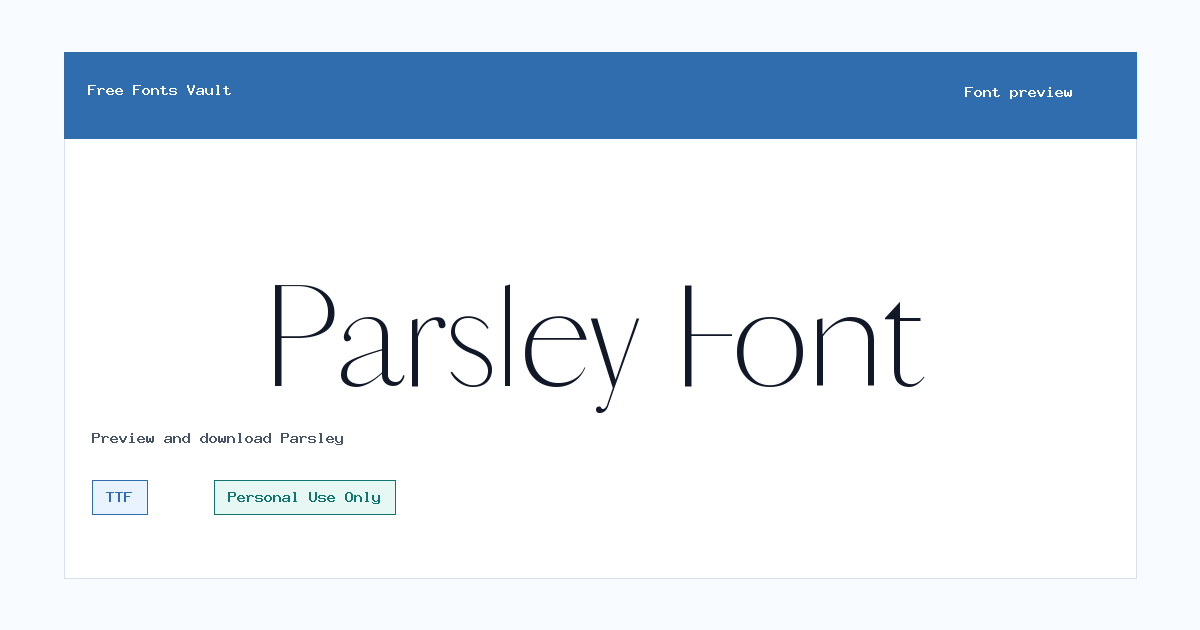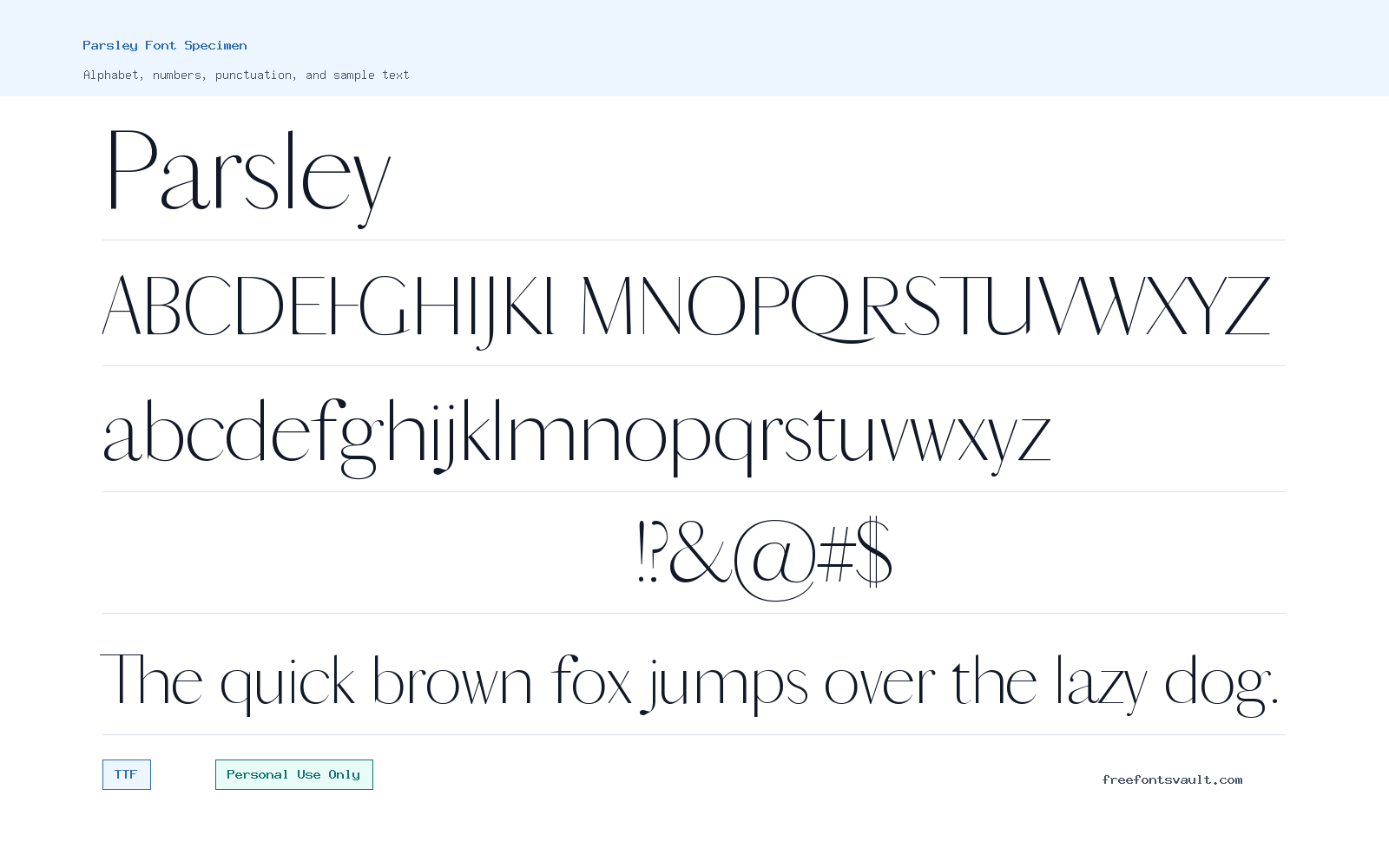
Parsley
Parsley font.
Parsley is a regular-weight sans serif font in TTF format, suited to clean lettering tests, simple display text, and personal design experiments.
About Parsley Font
Parsley keeps things straightforward: one regular style, normal upright letters, and a sans serif structure. That makes it easy to try in the font preview before downloading, especially if you want a clean text style without extra decorative effects. Because the download is a regular 400-weight TTF file, it is best judged in real words rather than by single letters. Type a short title, a name, a button label, and a few mixed-case lines to see how the spacing, rhythm, and punctuation feel together.
Use Parsley where a simple sans serif can support the design without taking over the whole layout. It can work for personal posters, quote graphics, school projects, mockups, social images, printable labels, and casual branding drafts. For longer paragraphs, test it at small sizes first; many fonts that look good in a headline need extra checking in body copy. If the letters feel tight or light in your design software, try increasing tracking slightly or using it only for headings and short text blocks. Pair it with a calmer serif or a neutral system sans for supporting text, and avoid combining it with another strong display face unless you want a busy look.
- Regular 400-weight style with normal upright letterforms
- Sans serif style suited to clean personal-use layouts
- Simple single-style family, easy to test before downloading
- Personal posters, quote cards, and social media graphics
- Short headings, names, labels, and simple title treatments
- School projects, hobby designs, and non-commercial mockups
- Testing clean sans serif typography in design software
What is Parsley best used for?
Parsley is best for short personal-use text such as headings, labels, quote graphics, mockups, and simple design experiments.